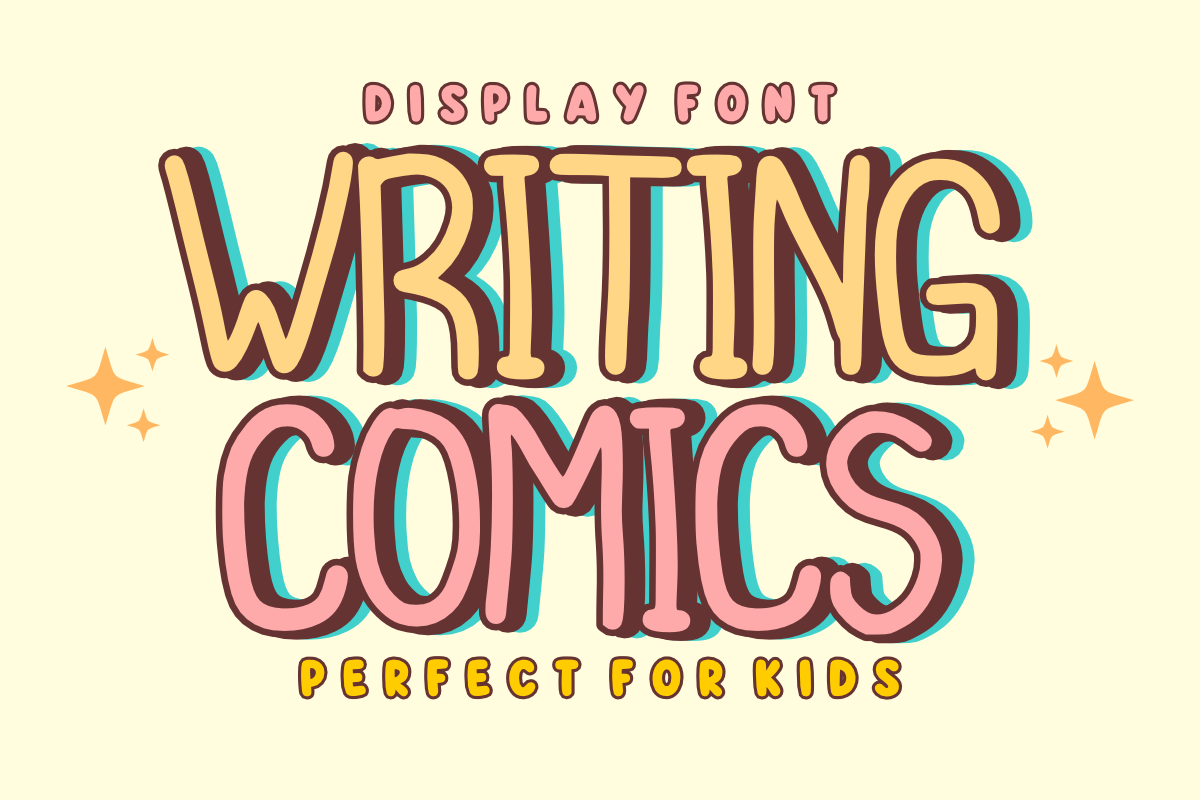
Writing Comics - Comic Display Font
Writing Comics - Playful Comic Display Font
Bring your stories to life and capture pure imagination with Writing Comics! This delightful hand-drawn display font is "Perfect for Kids" and packed with dynamic, adventurous personality.
Featuring friendly, rounded letterforms with a casual, animated rhythm, Writing Comics instantly injects the nostalgic and lighthearted essence of classic comic books into your work. It is specifically engineered to give your headlines high visual impact while maintaining crisp, professional legibility across digital and print media.
All-Caps Character Set (Fun, bold uppercase letters with a cartoon comic aesthetic)
Numbers & Basic Punctuation (Essential, simple symbols included)
Comic Books, Graphic Novels, & Storybook Illustrations 📚
Children’s Branding & Playful Logo Design 🎨
Kids' Product Packaging, Toy Labels, & Board Games 🧸
Social Media Marketing, YouTube Thumbnails, & Video Overlays 📱
Cricut, Silhouette, & DIY Craft Sublimation Projects ✂️